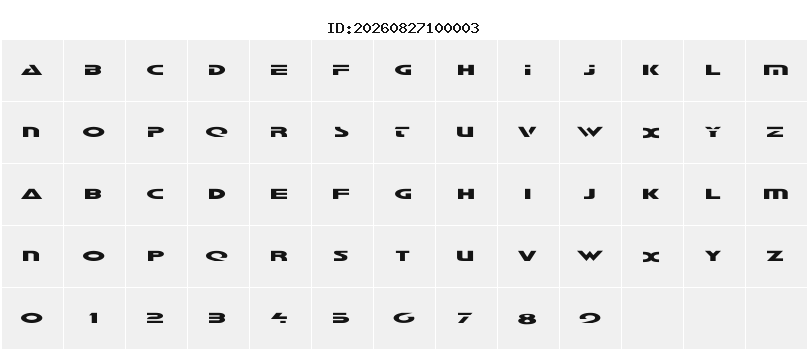
327-CAI978 Preview
• Version: Version 1.00 December 18, 1995, initial release
About 327-CAI978.ttf
327-CAI978.ttf is a modern, elegant sans-serif font designed for ultimate readability and visual harmony. Perfect for branding, headlines, web design, and print materials.